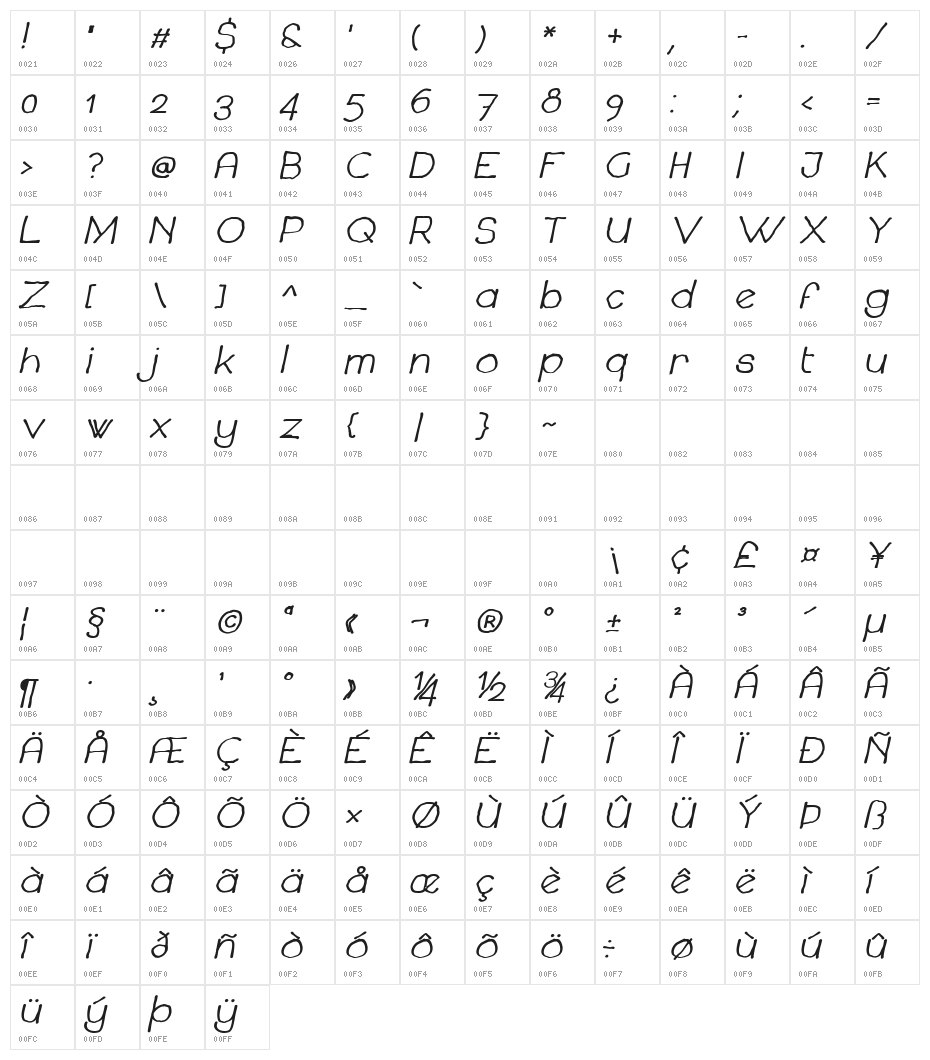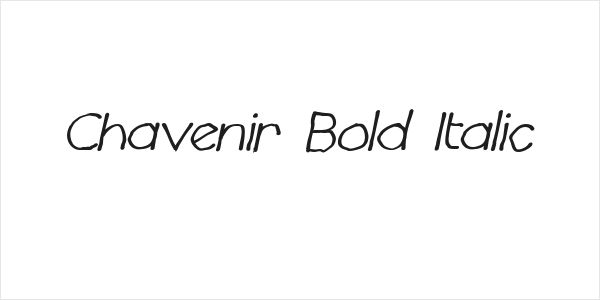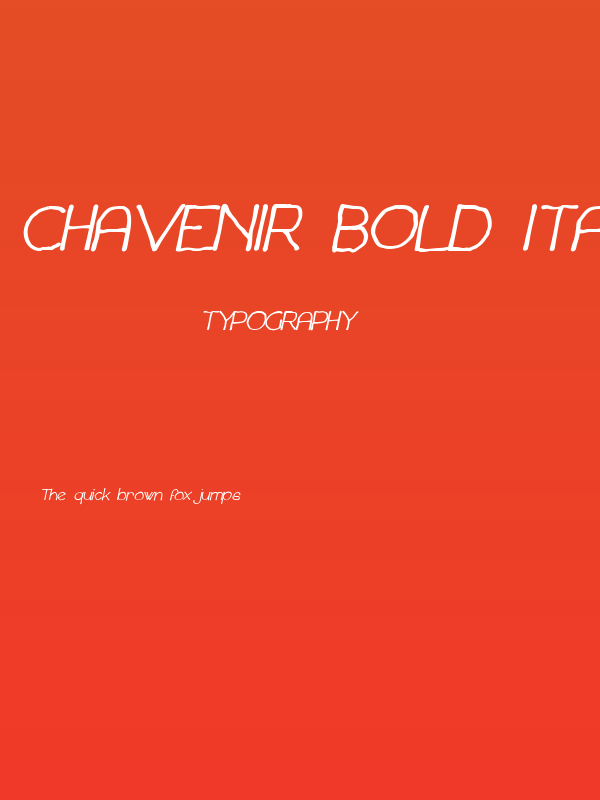
Chavenir Bold Italic Font
Chavenir Bold Italic Description
This font exhibits a dynamic and energetic style with a handwritten appearance. The characters are slightly slanted, giving it an italicized look, while maintaining a bold presence. The strokes are consistent and smooth, with a slight variation in thickness that adds to its lively character. The uppercase letters are tall and narrow, while the lowercase letters have a more rounded and open form. The numerals and special characters follow the same energetic style, making the font versatile for various uses. Overall, it conveys a sense of movement and creativity.
| Proposed Projects | Ideal for creative projects such as logos, posters, and invitations that require a personal touch. |